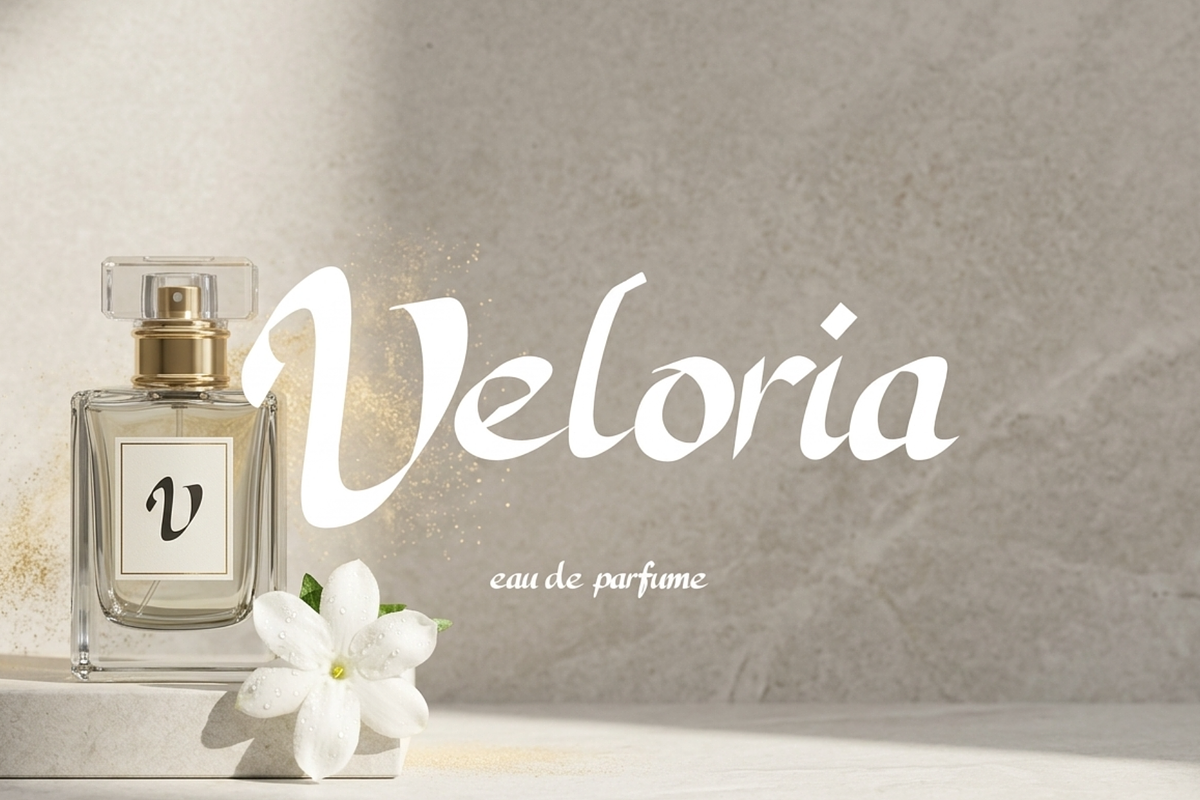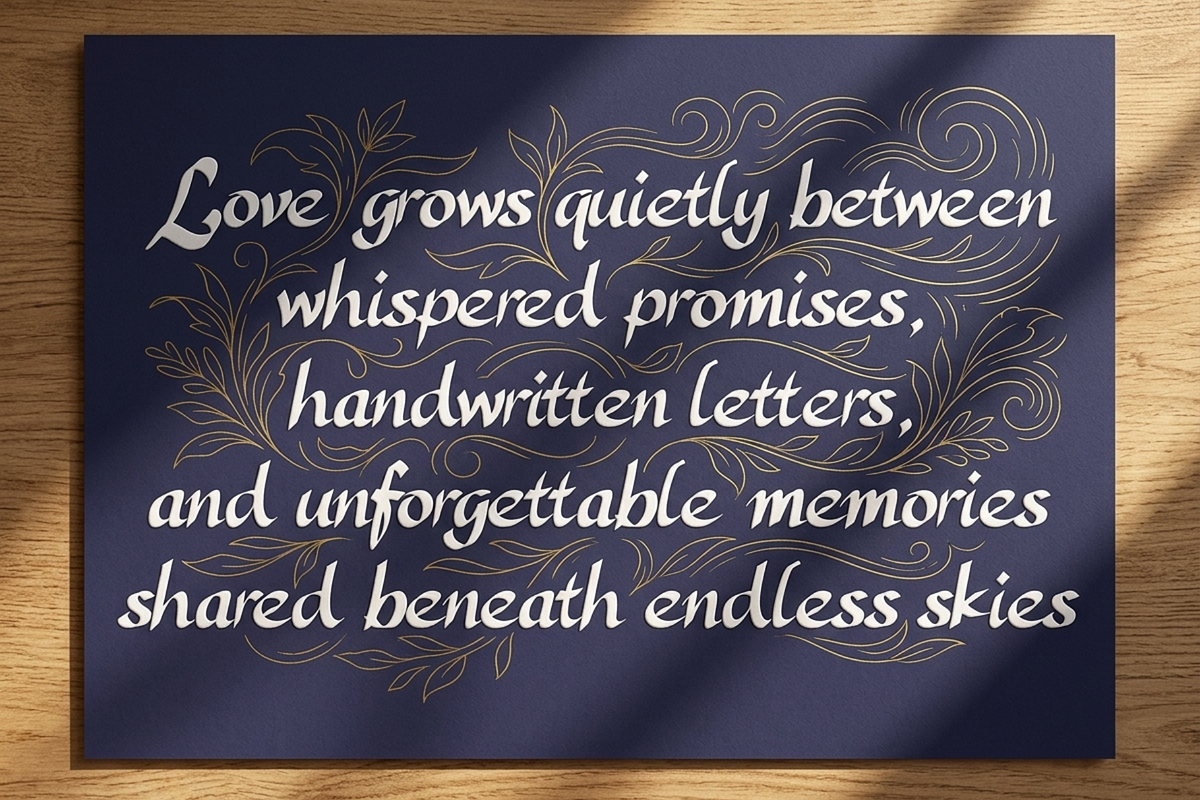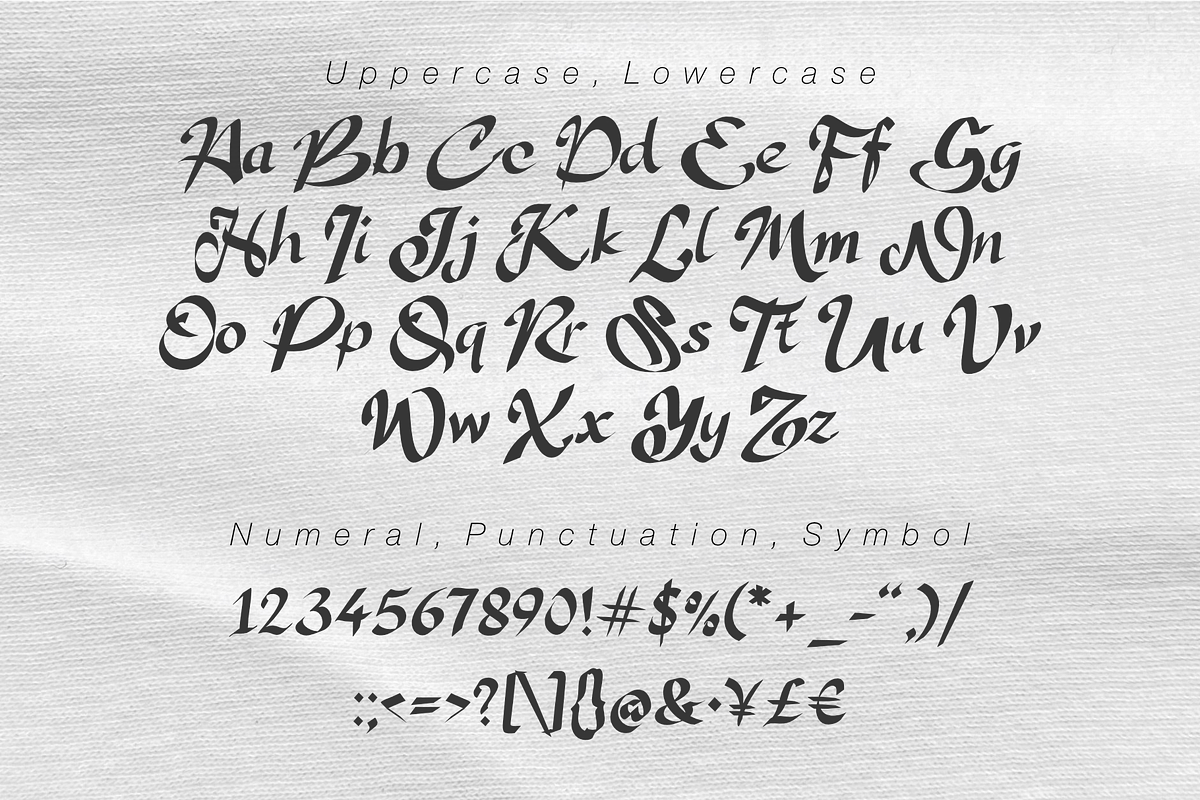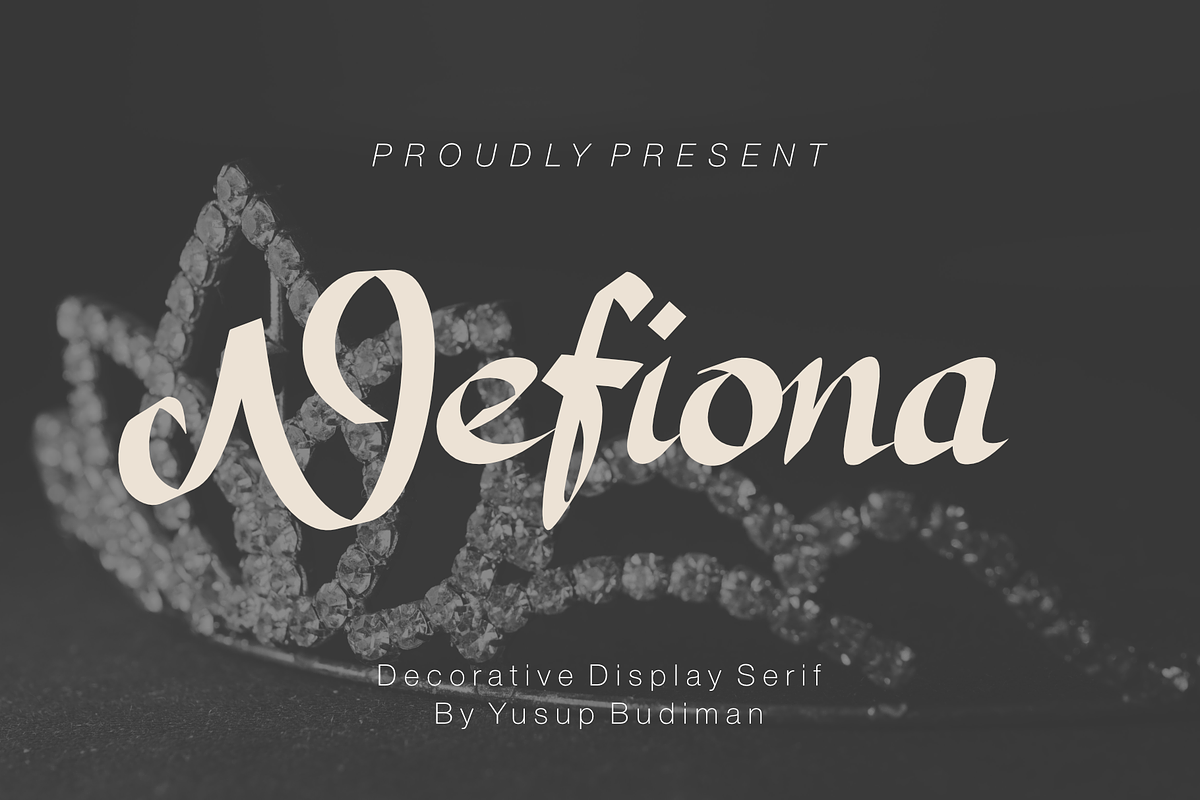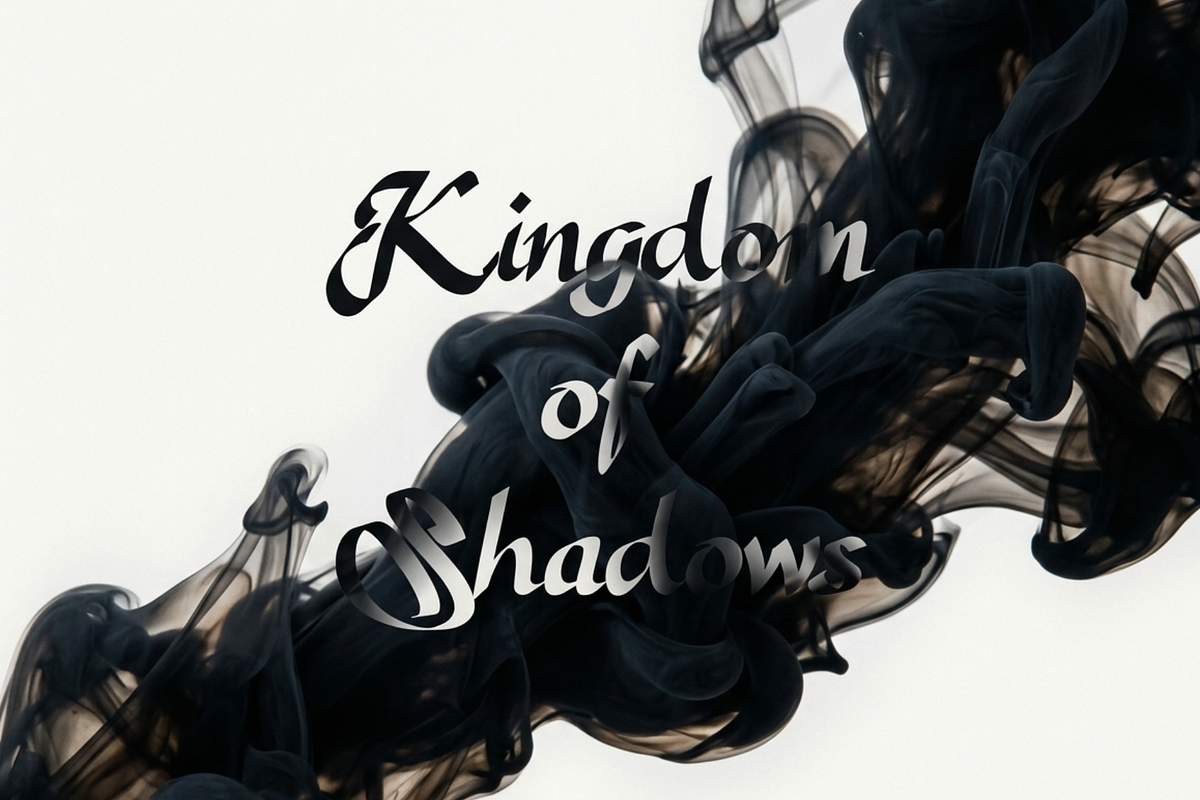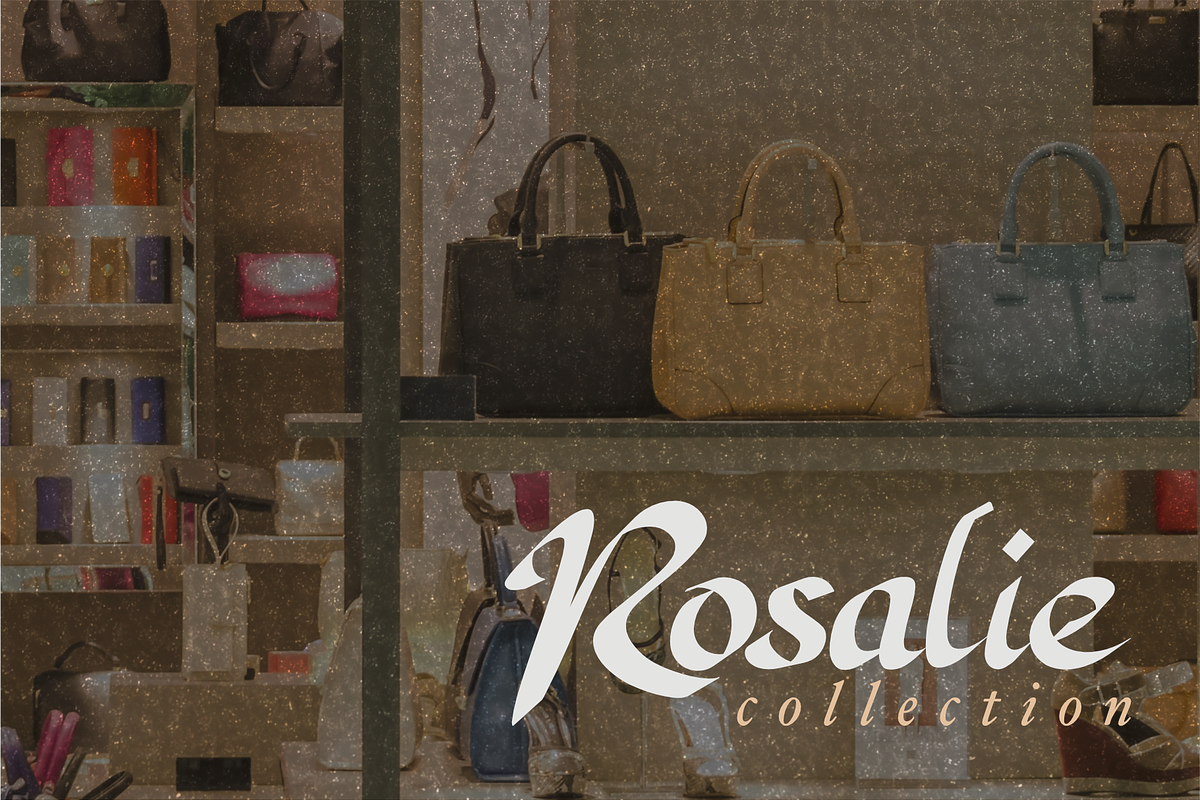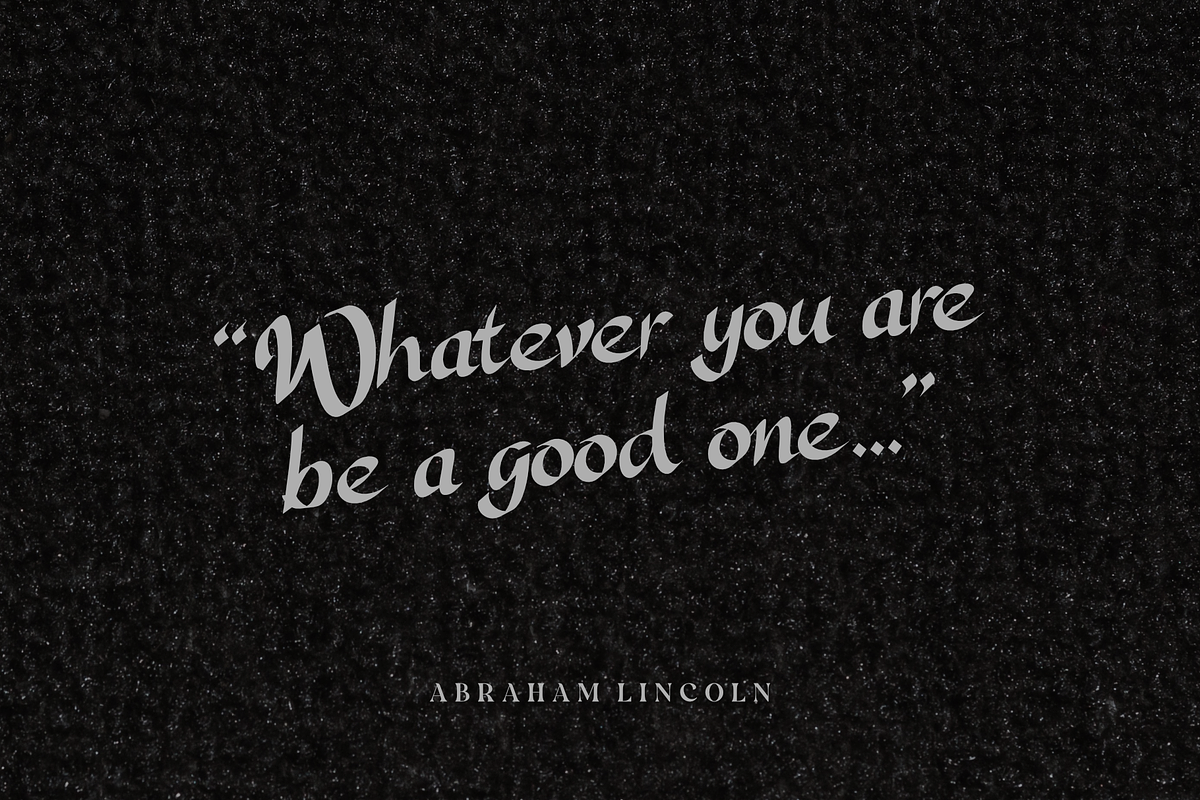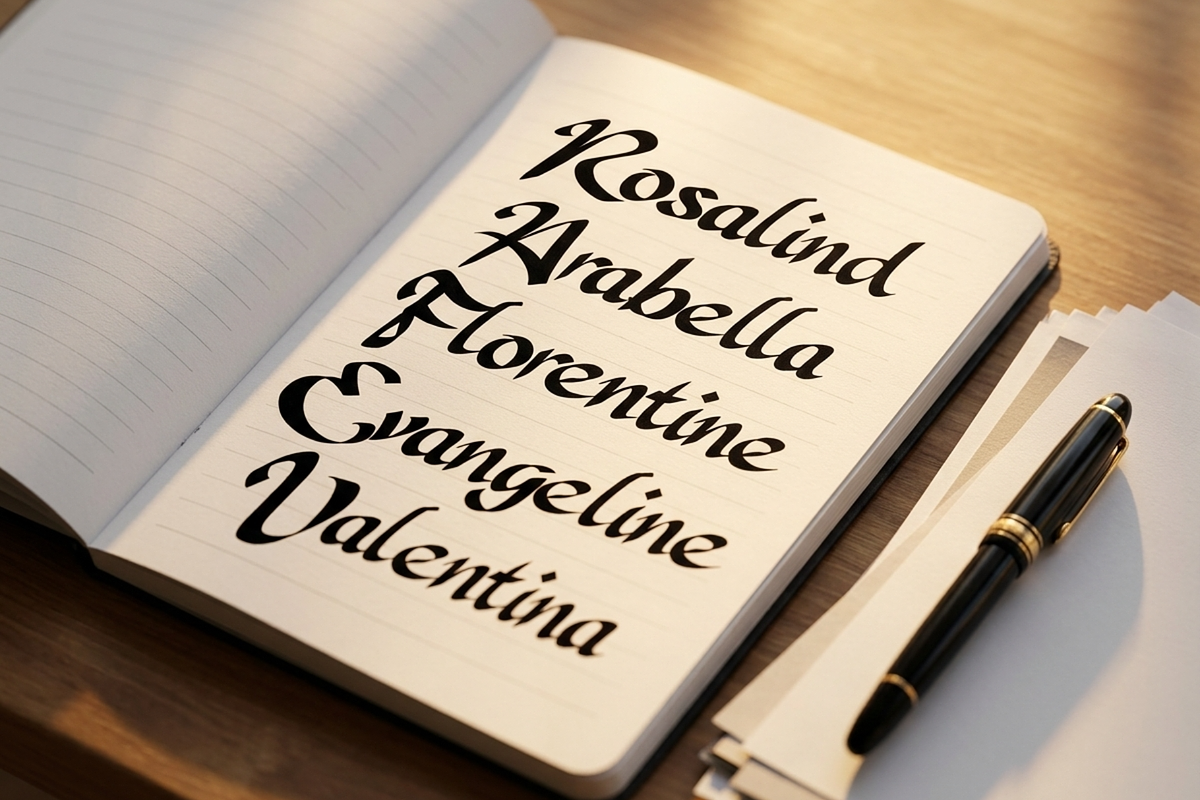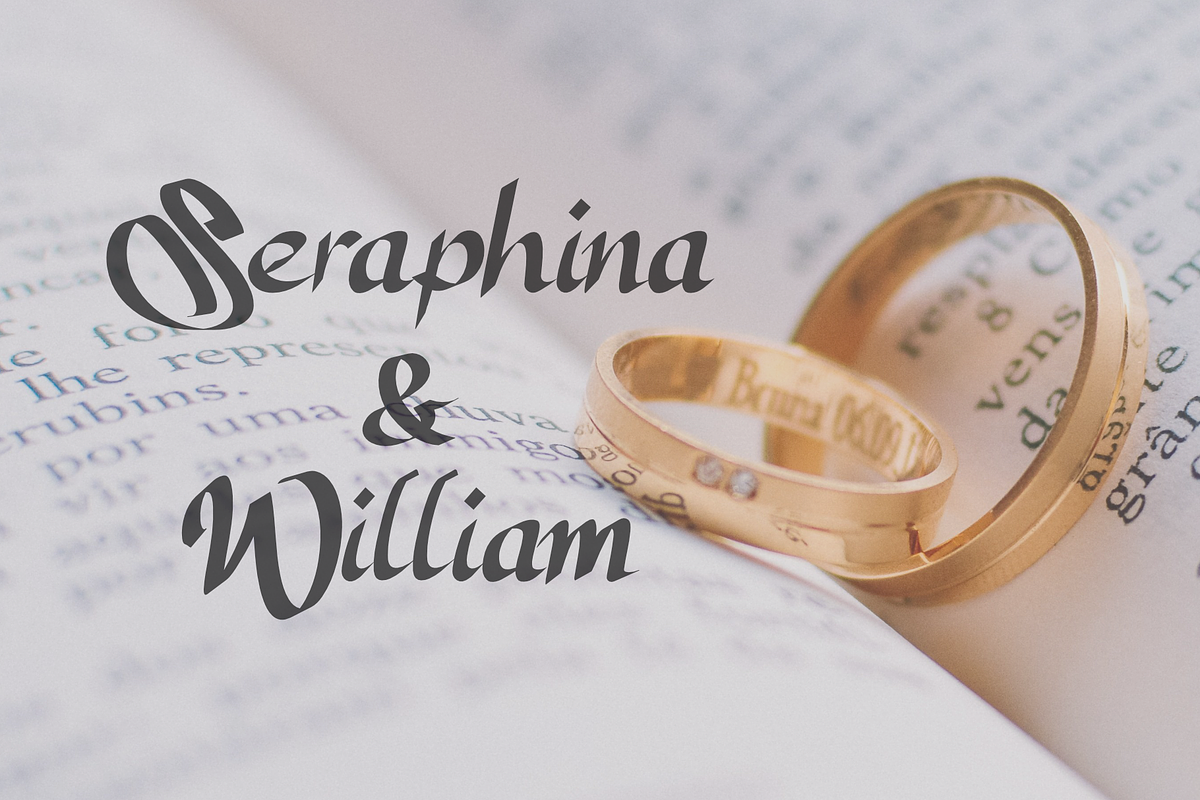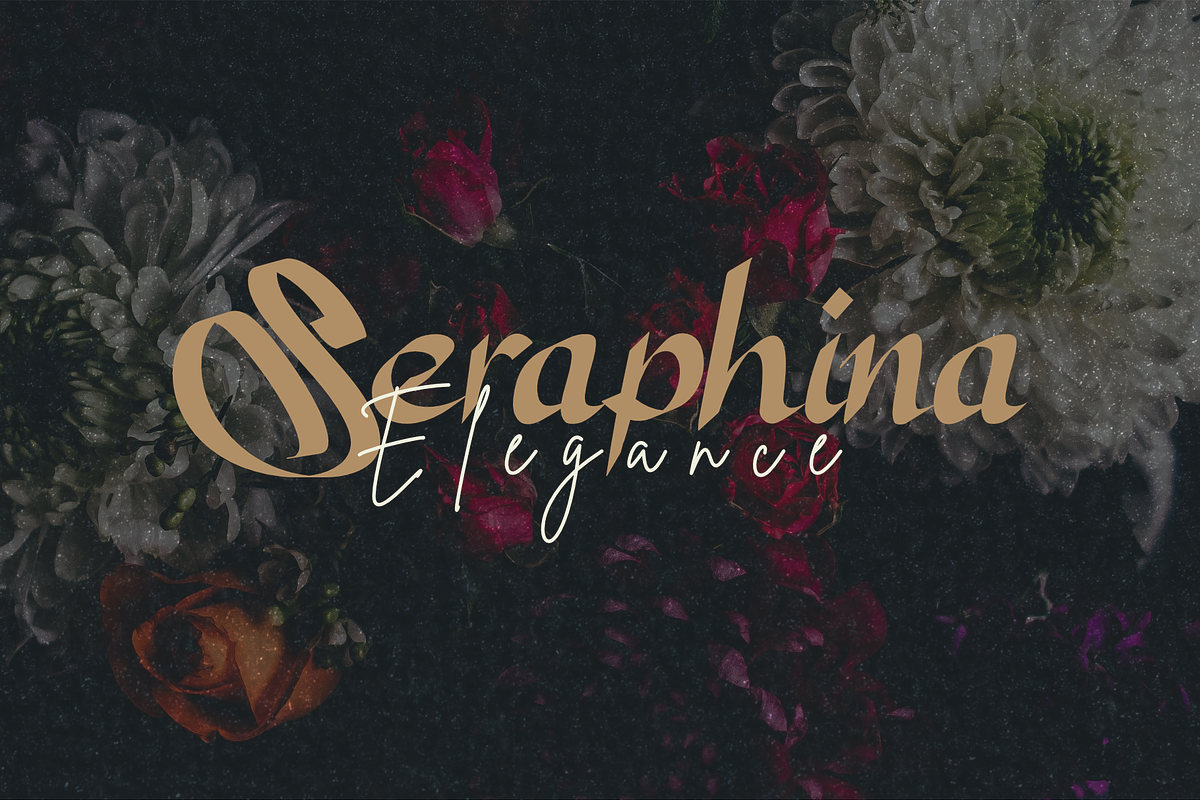
NEFIONA
NEFIONA – Elegant Serif Font
Introducing NEFIONA, an elegant serif font crafted to express timeless beauty, sophistication, and modern luxury.
Featuring graceful curves, stylish serif details, and refined letterforms, Nefiona is designed to elevate premium branding and feminine design projects. Every character is carefully balanced to create a luxurious impression while remaining highly readable.
Whether you're creating wedding invitations, luxury logos, perfume packaging, fashion editorials, cosmetic branding, or elegant social media graphics, Nefiona brings a distinctive touch of class and refinement.
Its graceful personality makes it an excellent choice for designers seeking a font that feels romantic, premium, and effortlessly stylish.
Luxury Branding
Fashion Branding
Beauty Products
Cosmetic Packaging
Perfume Labels
Wedding Invitations
Bridal Branding
Jewelry Brands
Boutique Logos
Editorial Design
Magazine Headlines
Greeting Cards
Social Media Templates
Instagram Quotes
Premium Logos
Restaurant Menus
Café Branding
Elegant Typography
Uppercase Letters
Lowercase Letters
Symbols
Elegant Serif Style
Decorative Letterforms
Luxury Display Font
Smooth Curves
High Readability
Perfect for Branding & Headlines
Nefiona is thoughtfully designed for creatives who appreciate elegance and timeless style. Whether you're designing luxury packaging, fashion branding, wedding stationery, boutique logos, or editorial layouts, Nefiona delivers a sophisticated aesthetic that makes every project feel premium.